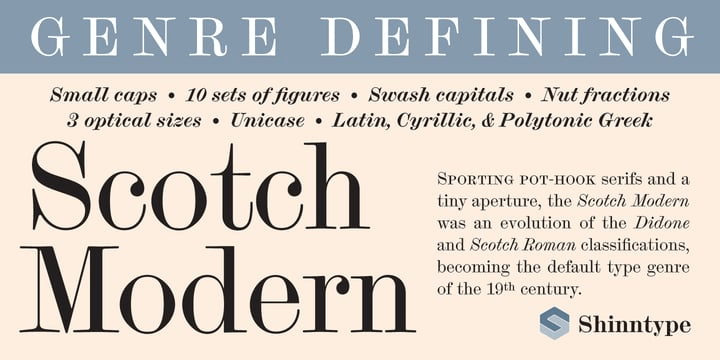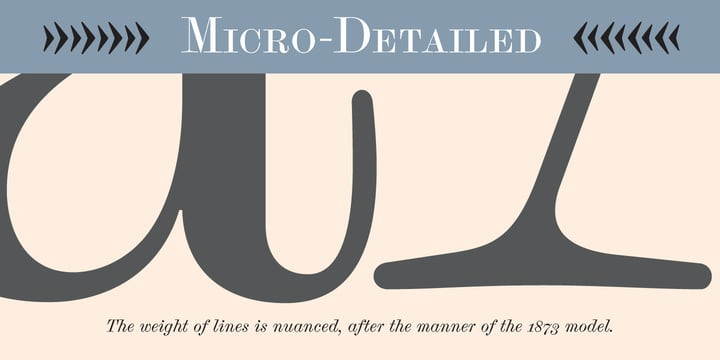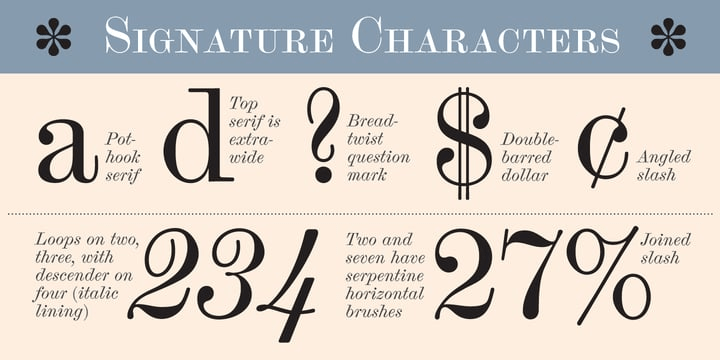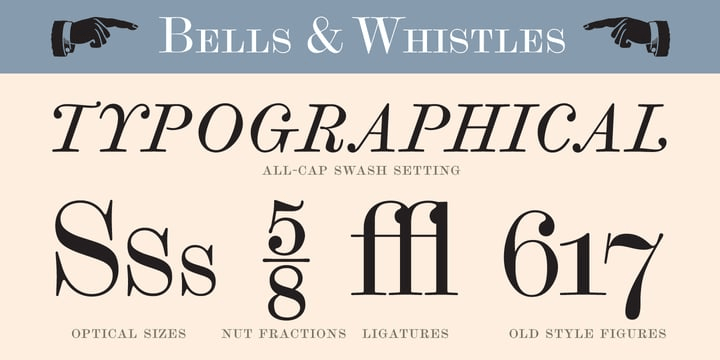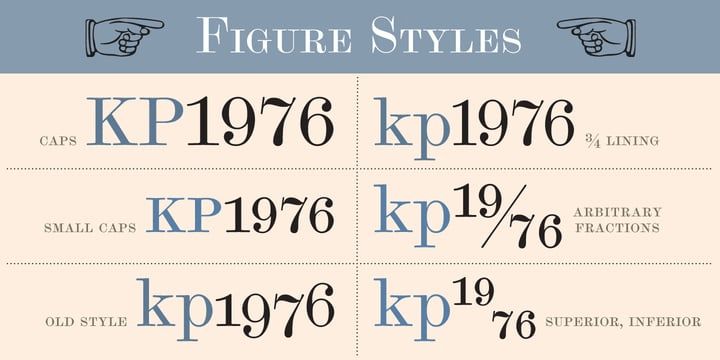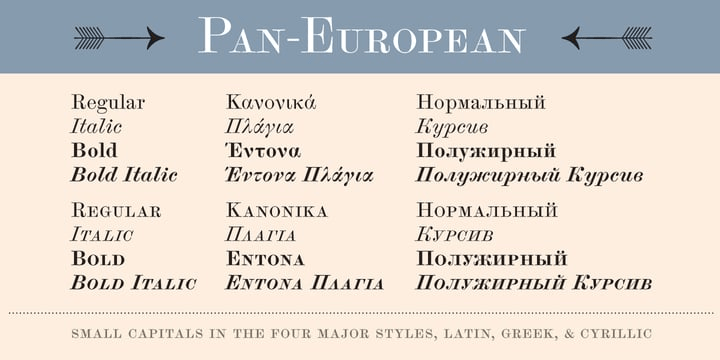
Scotch Modern
This beautiful genre of type, so popular in books, magazines and advertisements during the Victorian era and much of the 20th century, was derided by advocates of both the Arts & Crafts movement and 20th century modernists, and has never been properly adapted to hot metal, phototype, or digital media -- until now.
Now the full range of typographic expression is possible in this style. The OpenType fonts support Western and CE encodings, Cyrillic (with Bulgarian alternates) and Polytonic Greek. There are many special features, including small caps, unicase, italic swash capitals, ten sets of figures per font, and both slashed and nut (vertical) fractions.
Together with Figgins Sans, comprises The ModernSuite of matched fonts.